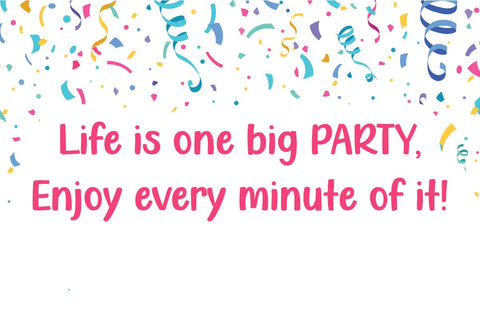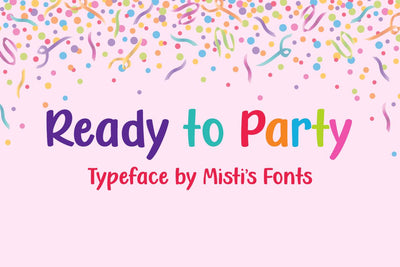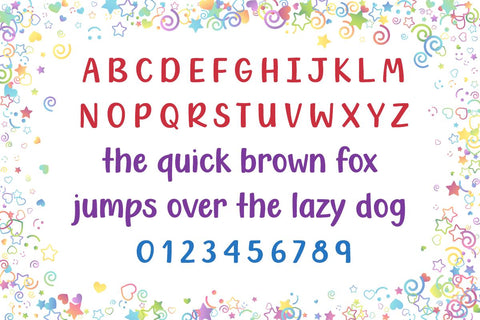
Ready to Party
Introducing "Ready to Party" – the ultimate bold handwritten typeface that brings a burst of energy and excitement to any project! This vibrant font is designed to capture the essence of celebration and joy, making it the perfect choice for party invitations, event posters, social media graphics, and so much more. With its playful yet sophisticated strokes, Ready to Party adds a touch of spontaneity and stylish flair, ensuring your message stands out with a unique, handcrafted feel.